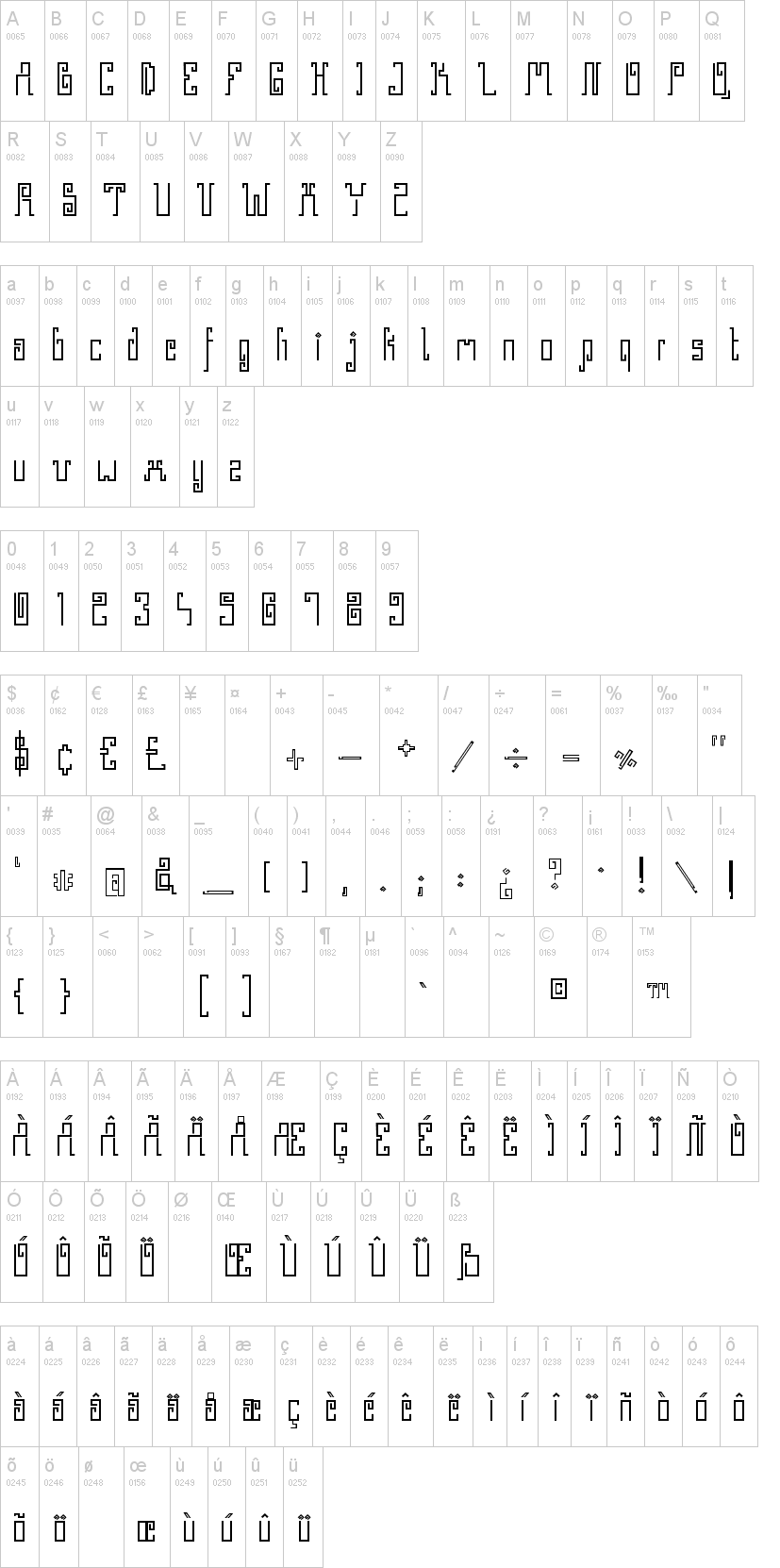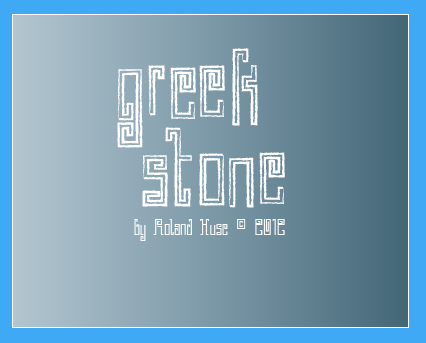
Note of the authorThis is one of my first abstract fonts I was trying to construct each character to reflect to greek architecture. Feel free to drop me a line in case of feedback or notice, that may also help me in my design work, and would be greatly appreciated.